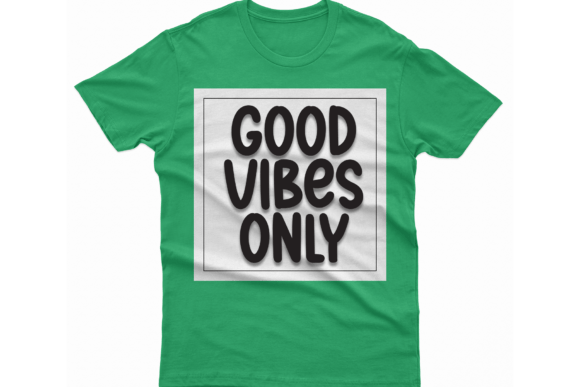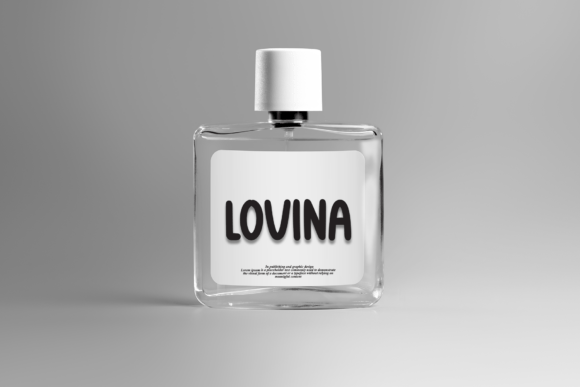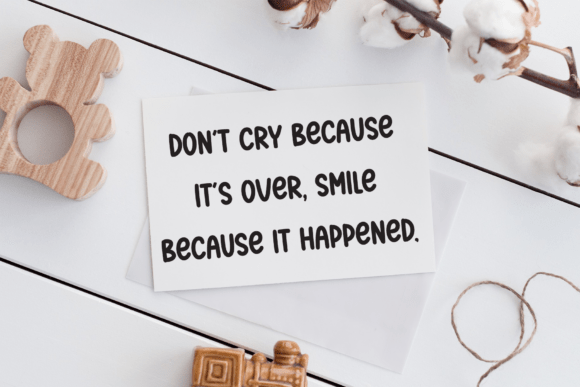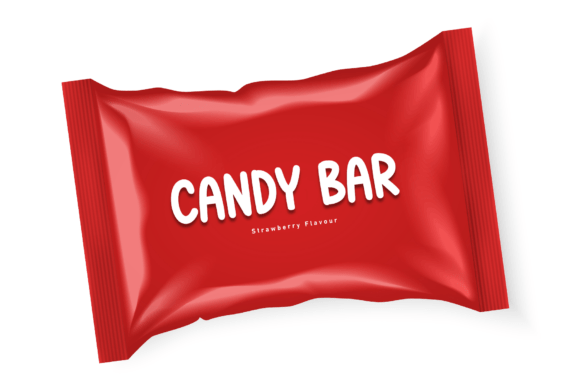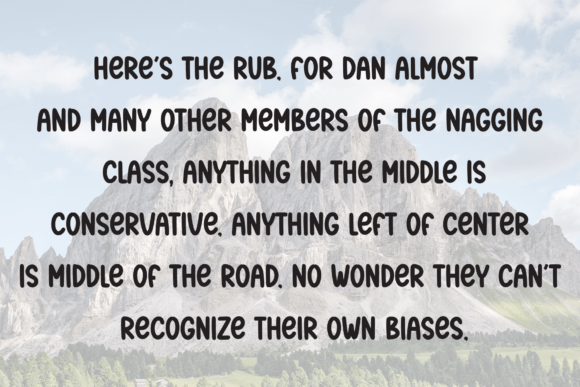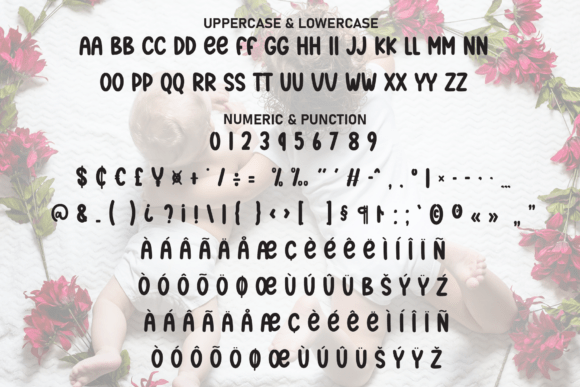
Baby Love Font: The Perfect Choice for Your Design Projects
Are you looking for a font that exudes a fresh, friendly vibe? Look no further than the Baby Love Font. This casual and neat display font is perfect for a variety of design projects, including packaging, posters, and social media graphics. In this article, we’ll take a closer look at the Baby Love Font, its features, and how you can use it to add charm and clarity to your projects.
What is Baby Love Font?
Baby Love Font is a display font designed to radiate a fresh, friendly vibe. Its clean lines and relaxed structure make it perfect for a variety of design projects. The font is approachable, charming, and polished, making it an excellent choice for designers and crafters looking to add a personal touch to their work.
Key Features of Baby Love Font
- Clean Lines: The Baby Love Font features clean lines that give it a crisp, modern look.
- Relaxed Structure: The font’s relaxed structure adds a friendly vibe, making it perfect for designs that require a personal touch.
- Approachable Design: The font’s approachable design makes it easy to read and understand, adding charm and clarity to your projects.
- Polished Appearance: Despite its casual nature, the Baby Love Font maintains a polished appearance, making it suitable for professional designs.
Uses of Baby Love Font
The Baby Love Font is versatile and can be used in a variety of design projects, including:
- Packaging: The font’s clean lines and relaxed structure make it perfect for packaging designs that require a fresh, friendly vibe.
- Posters: The Baby Love Font is an excellent choice for poster designs, adding a touch of charm and clarity to your message.
- Social Media Graphics: The font’s approachable design makes it perfect for social media graphics, helping you connect with your audience.
Why Choose Baby Love Font?
There are several reasons why you should choose the Baby Love Font for your design projects:
- Unique Style: The Baby Love Font has a unique style that sets it apart from other fonts, making your designs stand out.
- Ease of Use: The font is easy to read and understand, making it perfect for designs that require a clear message.
- Versatility: The Baby Love Font can be used in a variety of design projects, making it a valuable addition to your font collection.
Tips for Using Baby Love Font
Here are some tips for using the Baby Love Font in your design projects:
- Pair it with Other Fonts: The Baby Love Font can be paired with other fonts to create a unique and visually appealing design.
- Use it for Headings: The font’s clean lines and relaxed structure make it perfect for headings, adding a touch of charm and clarity to your message.
- Experiment with Colors: The Baby Love Font can be used with a variety of colors, so don’t be afraid to experiment and find the perfect combination for your design.
The Baby Love Font is a versatile and charming font that can add a fresh, friendly vibe to your design projects. Its clean lines, relaxed structure, and approachable design make it perfect for packaging, posters, and social media graphics. Whether you’re a designer or crafter, the Baby Love Font is an excellent choice for adding charm and clarity to your work. So why not give it a try and see how it can elevate your designs?